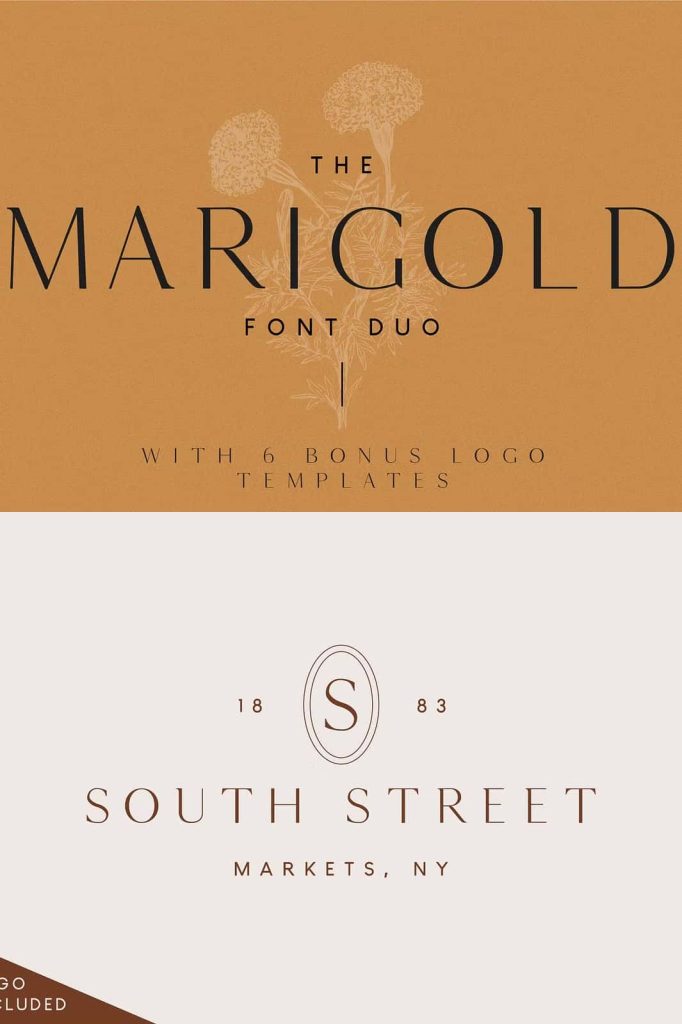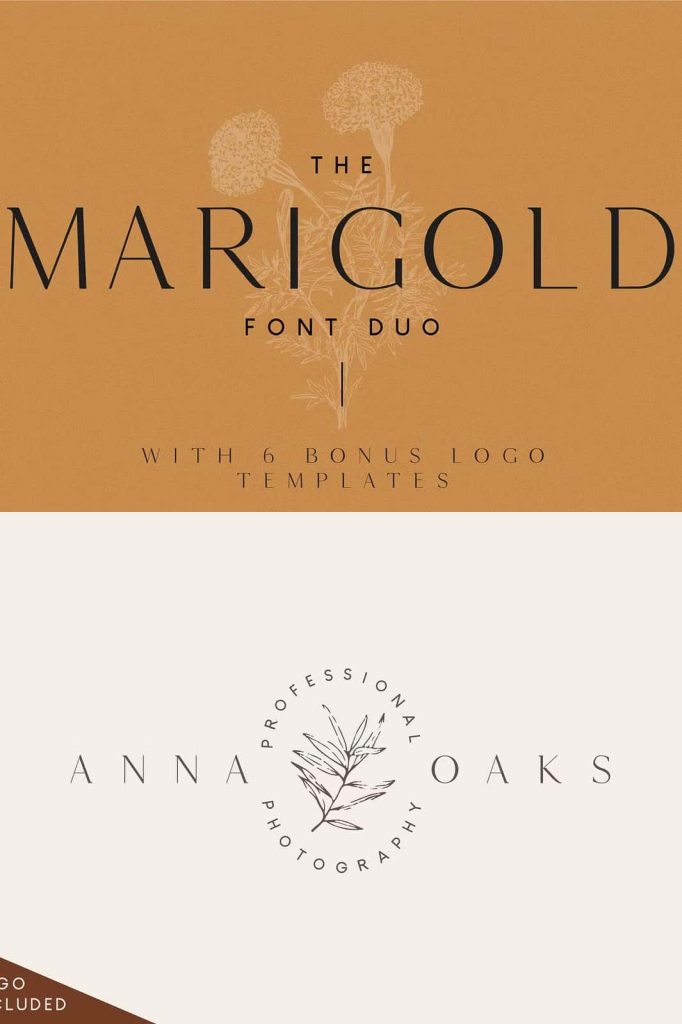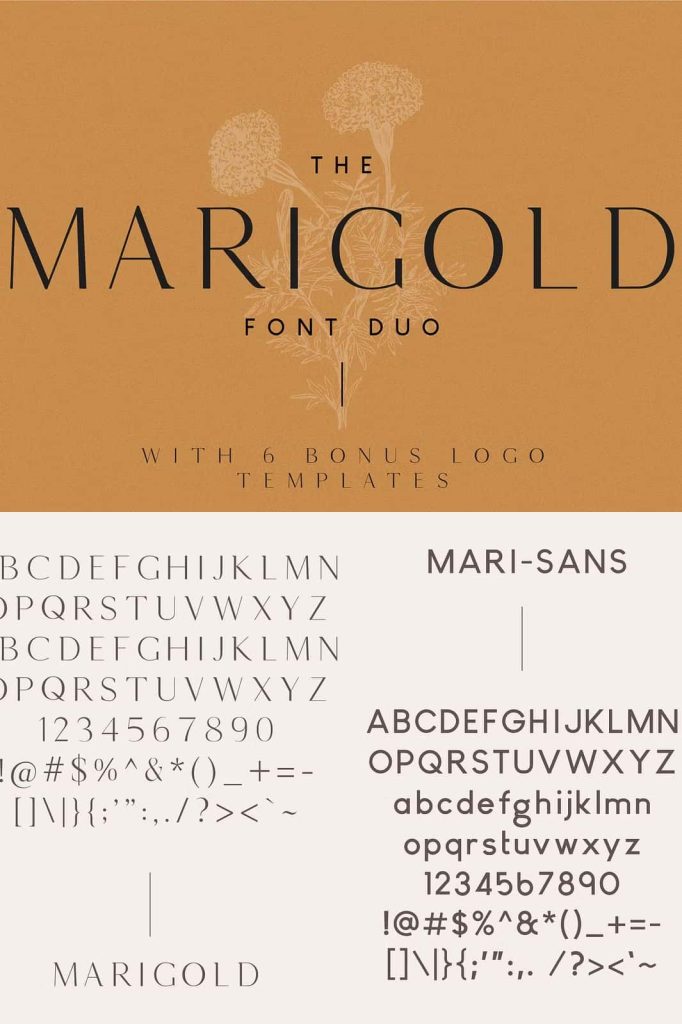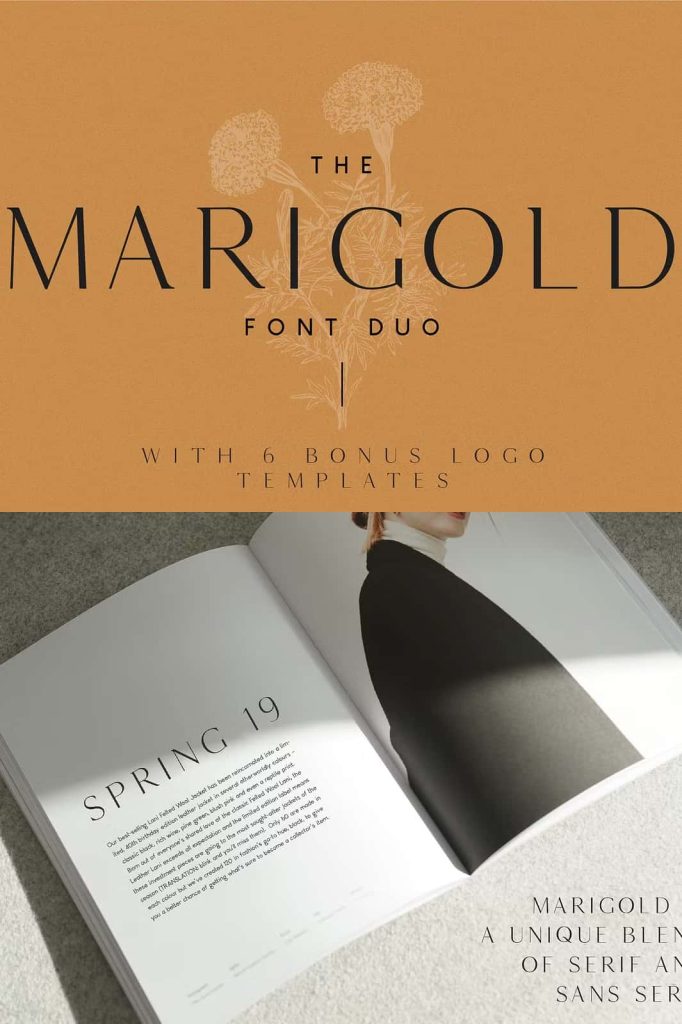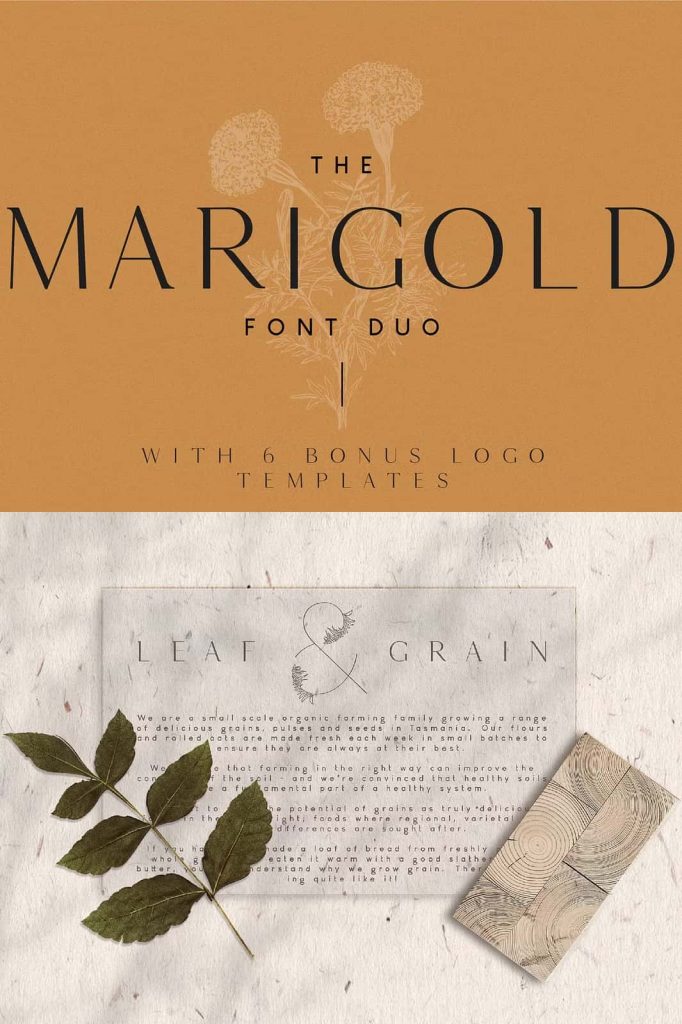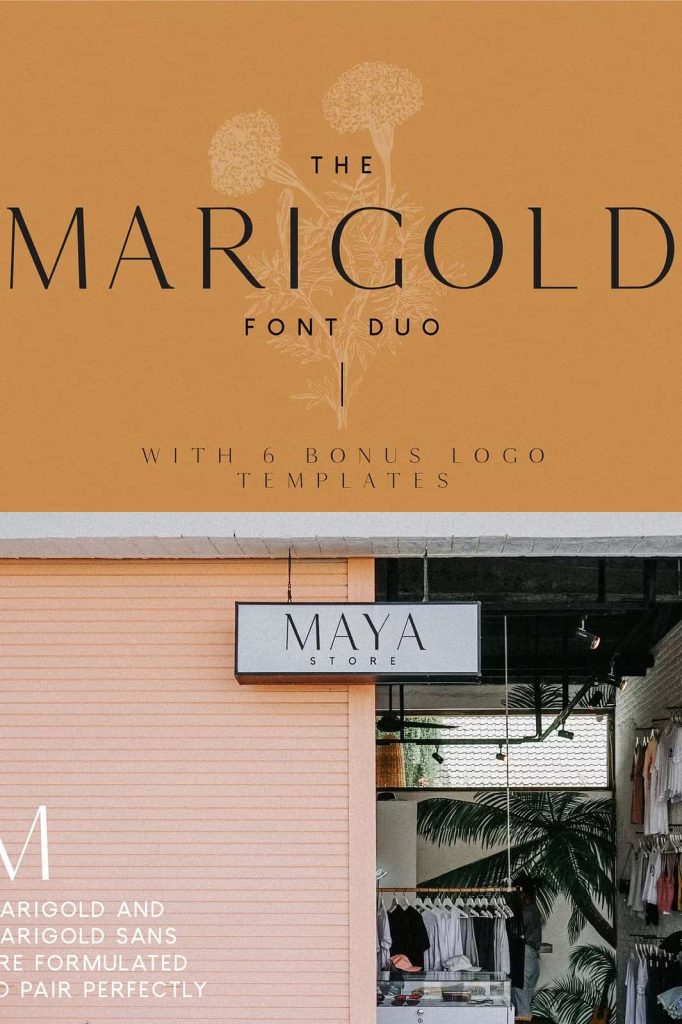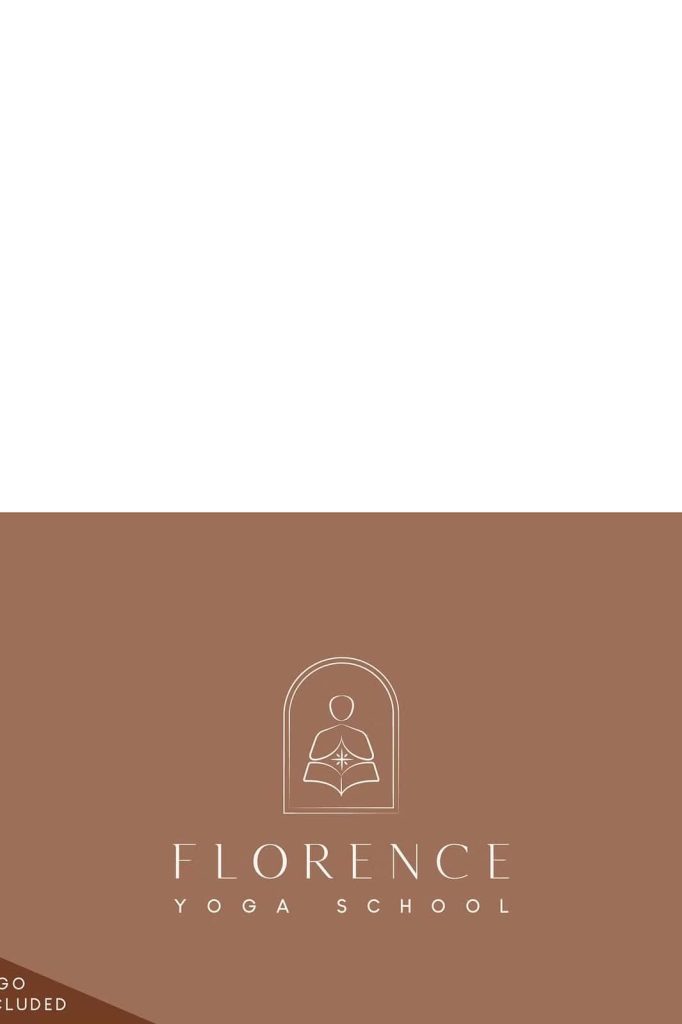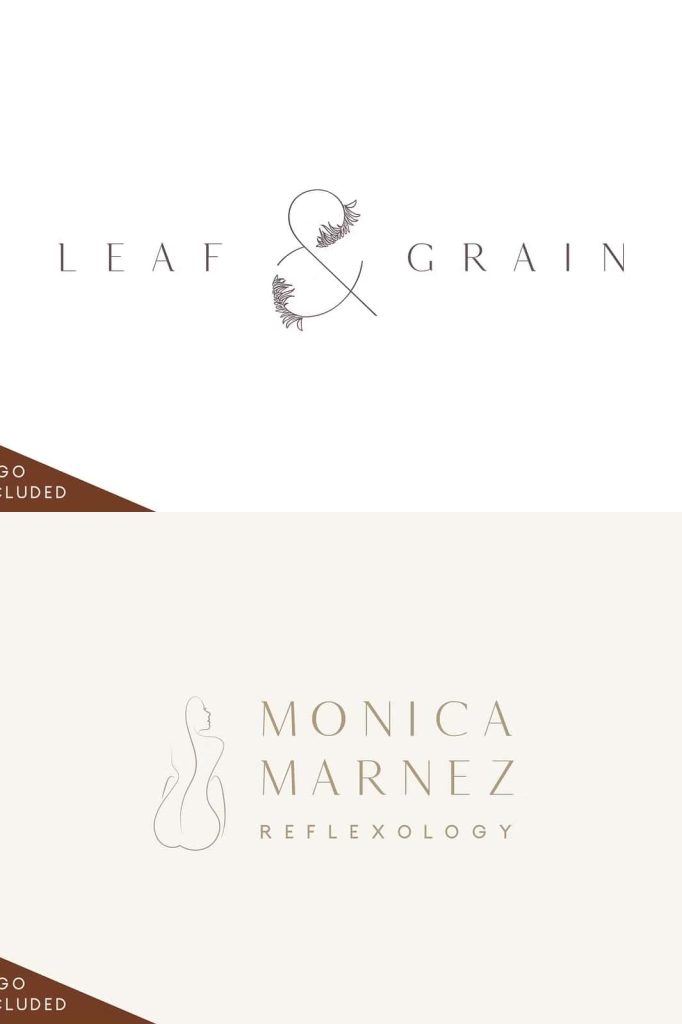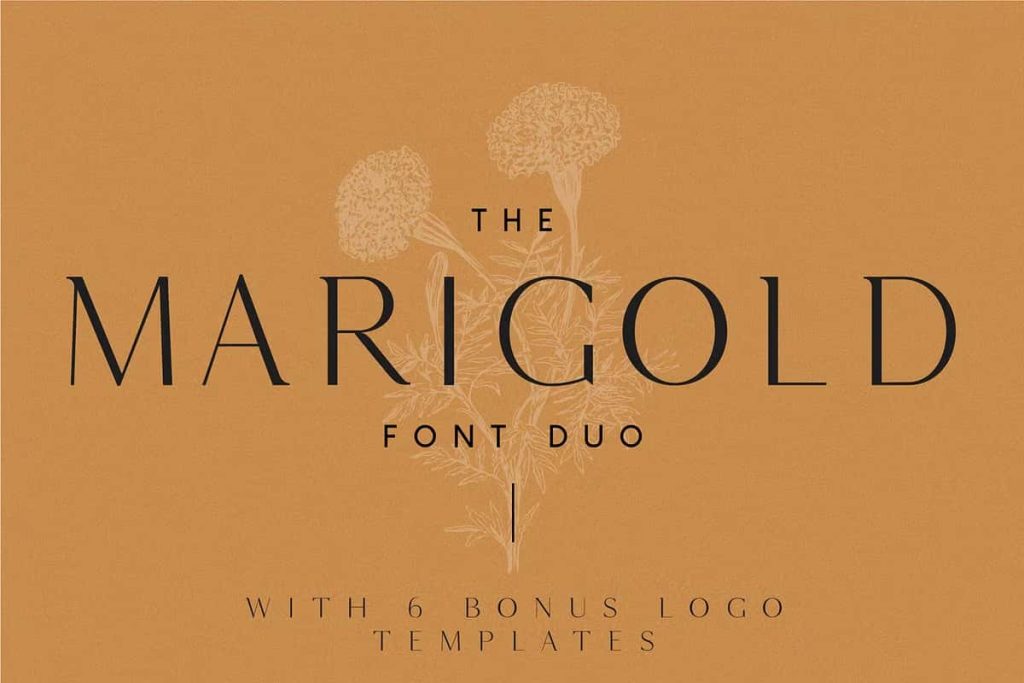
Marigold Font Duo for Modern and Versatile Design
Marigold is a distinctive font duo that combines the elegance of serif typography with the clean simplicity of sans serif design. This thoughtful fusion creates a balanced and versatile typeface system that works beautifully across a wide range of creative applications. Paired with Marigold Sans, a minimal and highly readable companion font, this duo gives designers the flexibility to build cohesive and professional designs with ease.
A Unique Blend of Serif and Sans Serif
Marigold stands out because it merges two classic typographic styles into one harmonious design. The serif elements introduce sophistication and character, while the sans serif influence ensures clarity and modern appeal. This combination allows you to create visuals that feel both timeless and contemporary.
By blending these styles, Marigold offers a fresh approach to typography. You can use it to craft designs that feel refined without appearing overly traditional, making it suitable for both modern and classic projects.
Paired with Marigold Sans for Balance
Marigold Sans complements the main font perfectly by providing a clean and minimal structure for supporting text. It works exceptionally well for taglines, body copy, and secondary information, helping you maintain readability while keeping your design visually appealing.
This pairing allows you to establish a clear hierarchy in your layouts. Use Marigold for headlines and key elements, and rely on Marigold Sans to deliver supporting content in a clean and organized way.
Designed for Branding and Identity
Marigold font duo gives you everything you need to build a strong and consistent brand identity. Its balanced design ensures that your typography remains cohesive across different platforms and materials. Whether you create logos, brand guidelines, or marketing assets, this font duo adapts effortlessly to your needs.
The combination of expressive and minimal styles allows you to communicate both personality and professionalism. This makes it an excellent choice for businesses that want to stand out while maintaining a polished image.
Includes Editable Logo Templates
To enhance your design workflow, Marigold comes with 6 bonus editable logos. These templates are built around the font duo, giving you a strong starting point for branding projects. You can customize each logo to match your vision, saving time while still achieving a unique result.
These ready-to-use designs help you explore different layout ideas and creative directions. Whether you are working on a new brand or refreshing an existing one, the included logos provide valuable inspiration and flexibility.
Speed Up Your Creative Process
With pre-designed logo templates, you can focus more on refining your ideas rather than starting from scratch. This feature is especially useful for designers who need to deliver high-quality results efficiently. The editable nature of the logos ensures that you can adapt them to suit different industries and styles.
Versatile for Print and Digital Projects
Marigold performs well across both print and digital platforms. Its clean structure ensures readability on screens, while its refined details shine in printed materials. You can use this font duo for websites, social media graphics, packaging, editorial layouts, and more.
The flexibility of the duo allows you to maintain a consistent visual identity across all touchpoints. This makes it a valuable asset for designers who work on multi-platform projects.
Ideal for Creative and Professional Applications
Marigold adapts to a wide range of design needs. It works beautifully for branding, logo design, marketing materials, and editorial content. Its balanced aesthetic makes it suitable for industries such as fashion, lifestyle, beauty, and creative services.
You can also use it for personal projects, portfolios, and presentations. The font’s versatility ensures that your designs always feel intentional and well-crafted.
Key Features of Marigold Font Duo
- Unique blend of serif and sans serif design
- Paired with Marigold Sans for clean body text
- Includes 6 editable logo templates
- Perfect for branding, logos, and editorial design
- Works seamlessly across print and digital platforms
Elevate Your Design with Marigold
Marigold font duo empowers you to create designs that feel modern, elegant, and highly versatile. Its combination of expressive and minimal styles gives you the tools to build strong visual identities and engaging layouts. With the added benefit of editable logo templates, you can streamline your workflow and produce professional results more efficiently.
If you want a typeface system that adapts to your creative needs while maintaining a consistent and polished look, Marigold is an excellent choice. Use it to enhance your branding, refine your typography, and bring your ideas to life with confidence.